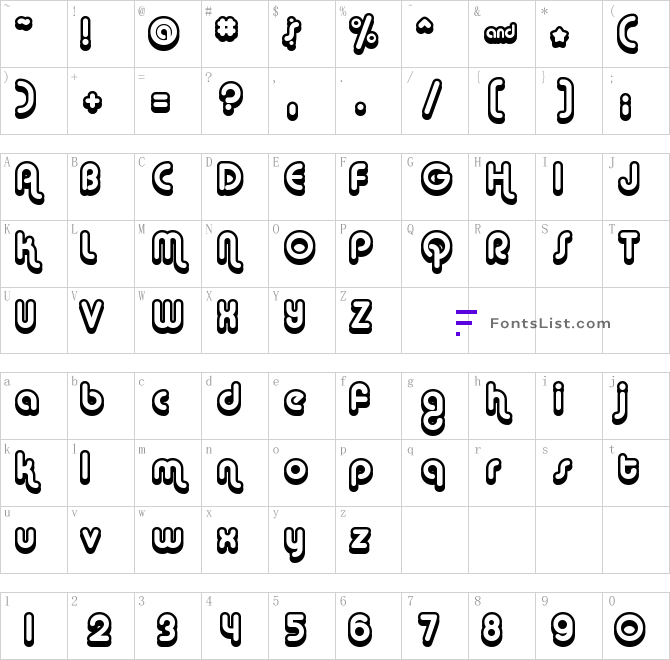
- Font Name:Alba Super
Alba-Super-copy-1-.ttf is a very beautiful artistic font, Alba-Super-copy-1-.ttf is widely used in the design and printing of various books and pictures,Alba-Super-copy-1-.ttf has a strong visual impact,Alba-Super-copy-1-.ttf is a commonly used font in newspapers, magazines and books, and is used in posters, e-commerce Poster design, store design, logo design, font design and other fields.Alba-Super-copy-1-.